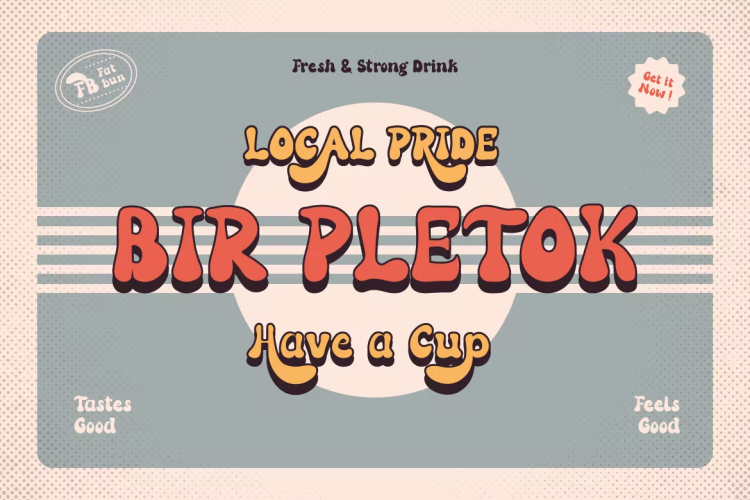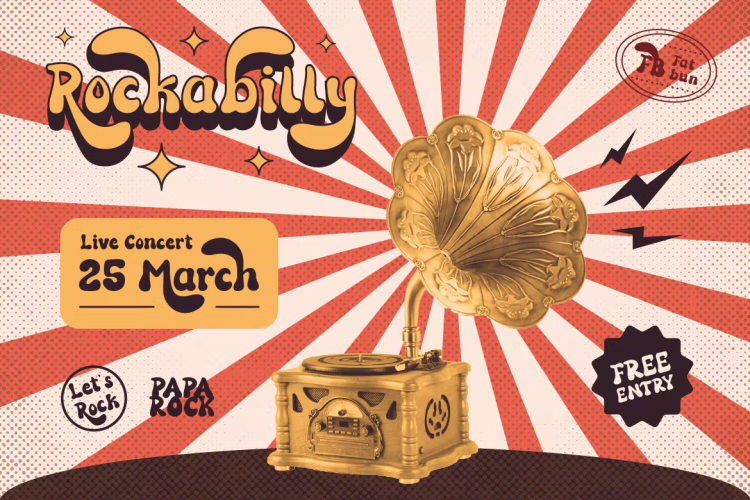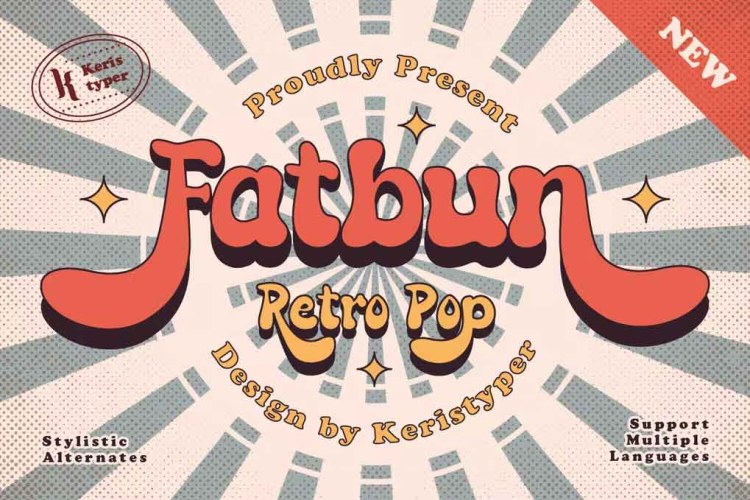
Fatbun Font
Introducing Fatbun – playful hand-lettered bold typeface inspired by classic groovy retro display font. This font is good for logo design, Social media, Movie Titles, Books Titles, short text even long text letters, and good for your secondary text font with sans or serif.
Where Fatbun Font works best
Seasonal campaigns
Fatbun Font gives a holiday or themed promotion its own look without redrawing anything; use it for the headline only.
Party and family invitations
Decorative letters set the mood before the text is read. Pair Fatbun Font with a plain sans for the practical details.
Game and video titles
Themed lettering sells the world of a game or a channel in one frame.
What kind of work does Fatbun Font suit?
It sits in the Decorative Fonts group and reads as bold, decorative, decorative fonts, display. That makes it a candidate wherever those qualities help: headings, packaging, social graphics and brand work. Set it at the size you plan to use before deciding.